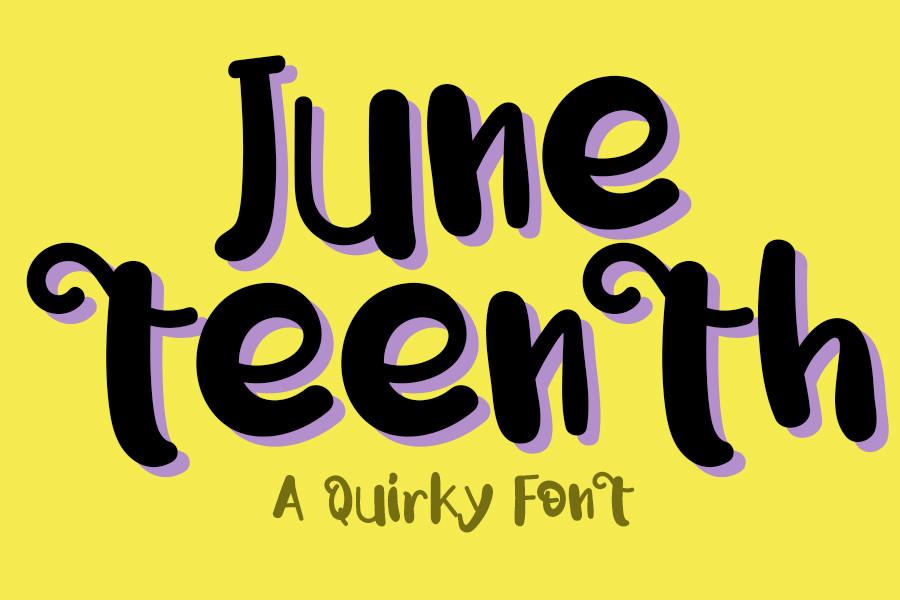
Juneteenth Font Description
Juneteenth is a thick lettered and quirky display font with an incredibly friendly feel. Whether you’re looking for fonts for Instagram or calligraphy scripts for DIY projects, this font will turn any creative idea into a true piece of art!